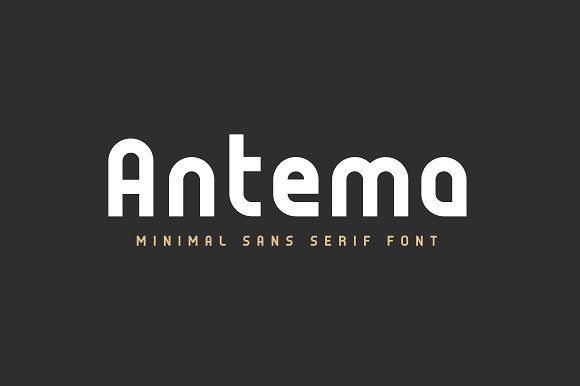
Antema Minimal Font
Introducing Antema Minimal Font! Antema designed by Seceme Shop, this is a premium font, are sold on creativemarket, but it was great, it is free today for download. Antema is a modern, geometric sans serif font. The clear, geometric & minimal design makes it perfect for many purposes.